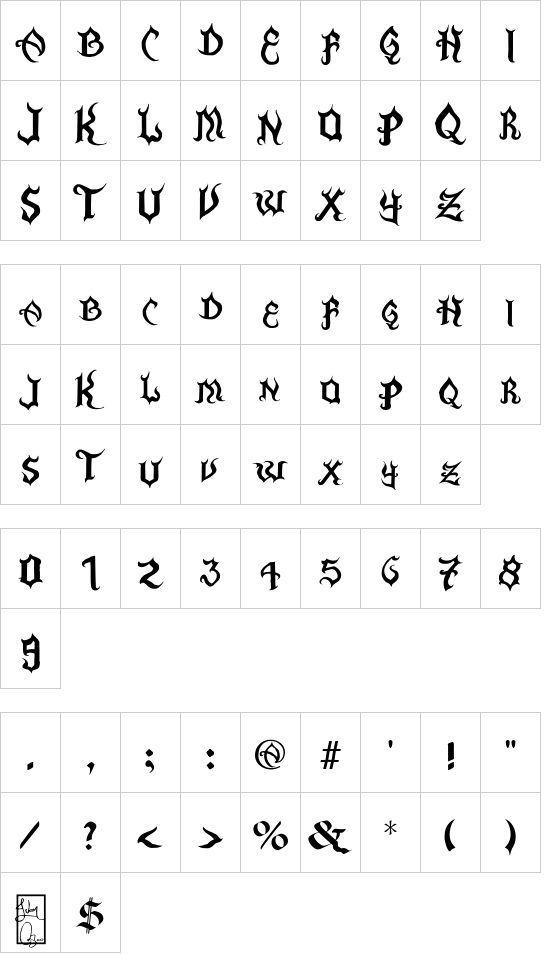
La Flama y La Espina is a medieval horror display font with sharp, menacing letterforms that recall ancient grimoires and dark legend. The strokes are spiked and angular, ending in thorny points, blending old-world manuscript heritage with a frightening, sinister edge that feels both archaic and cruel.
Use La Flama y La Espina for fantasy game art, horror posters, metal branding, and gothic event flyers where dread and antiquity meet. The font is free to download as a TrueType file, and the preview lets you run your own text through it to see how its thorny, menacing forms read across a title or short line.